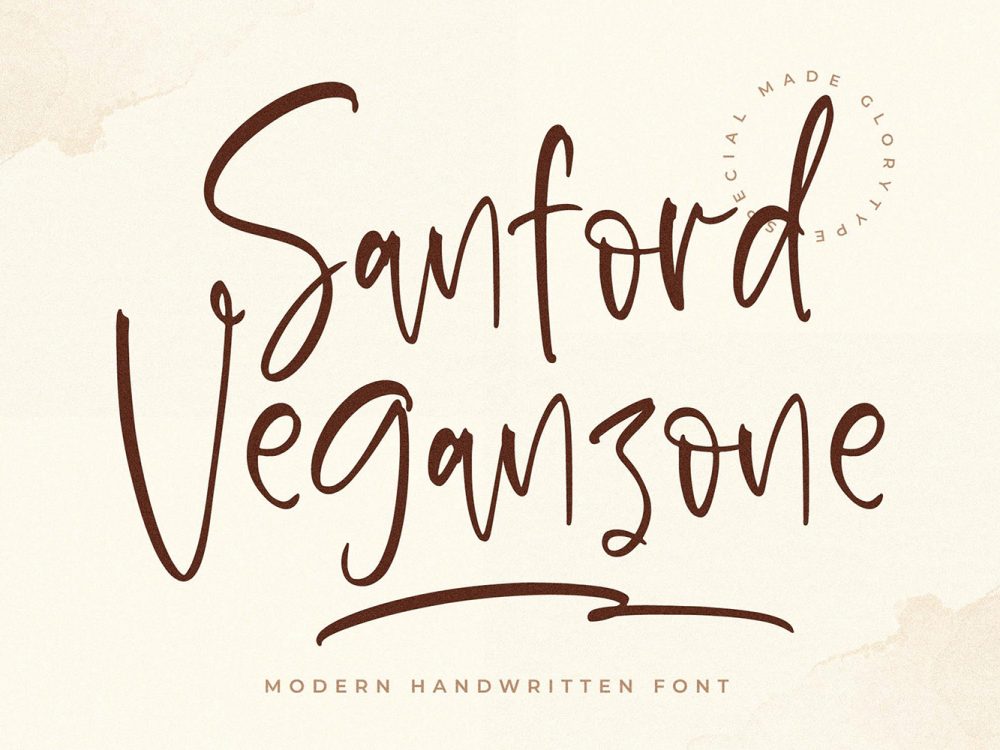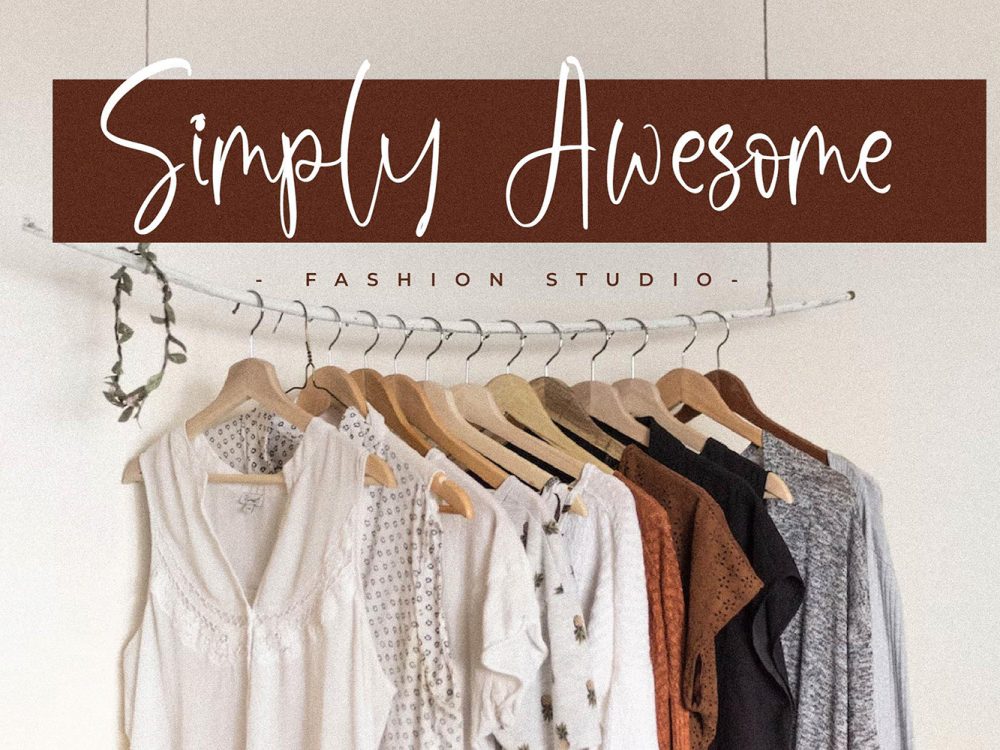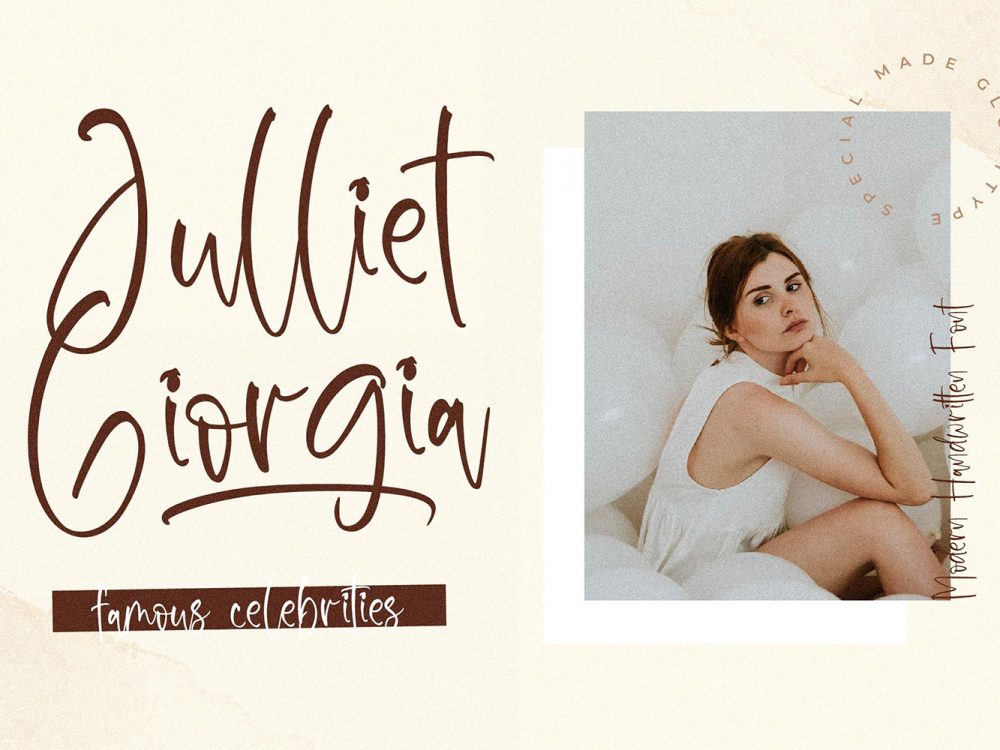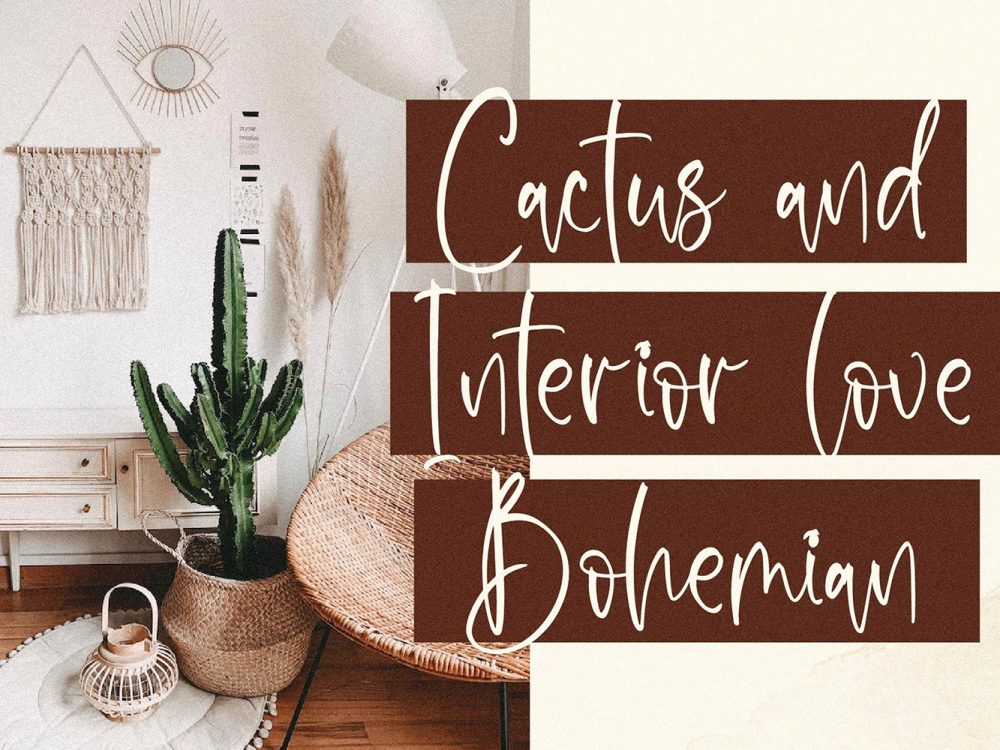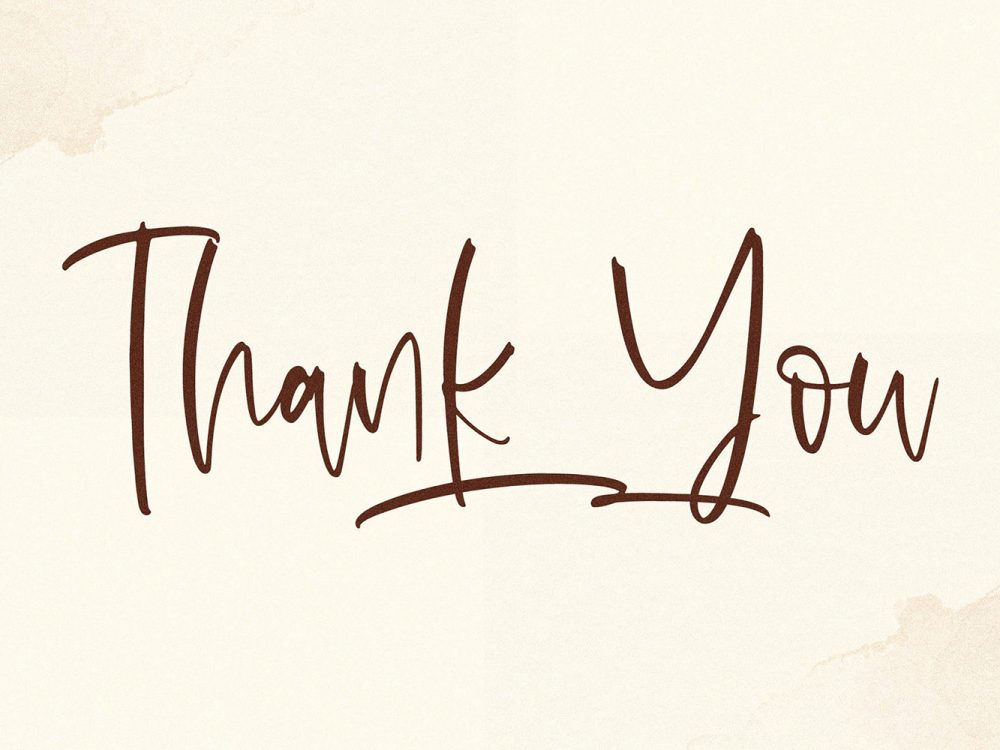
Sanford Veganzone Free Font
Sanford Veganzone Free Font is a lovely and timeless handwritten font. It is the best choice for creating eye-catching logos, branding, and quotes. Every letter has a unique and beautiful touch, which will make your design come alive. If you like it don’t forget to check out the full version.